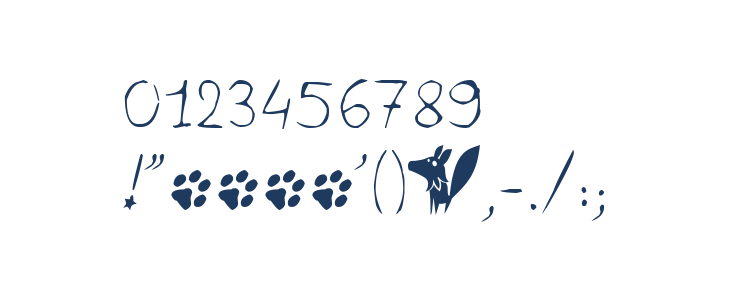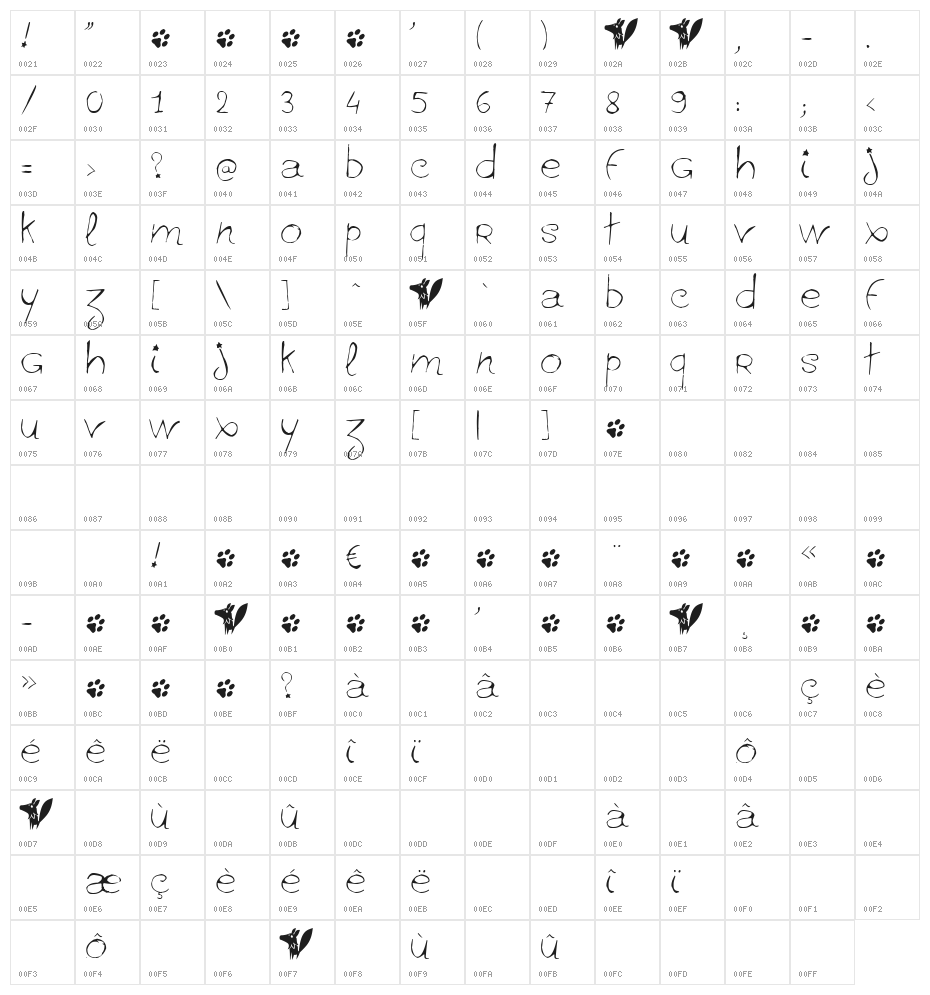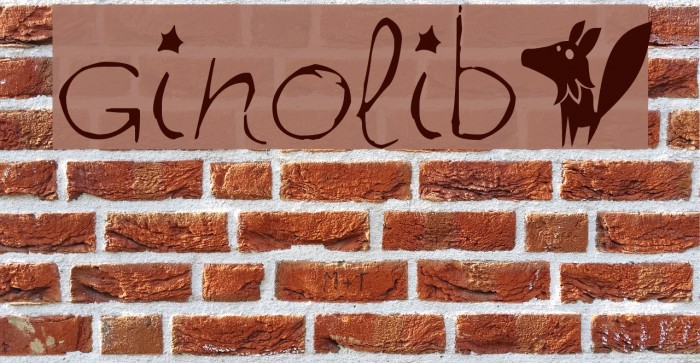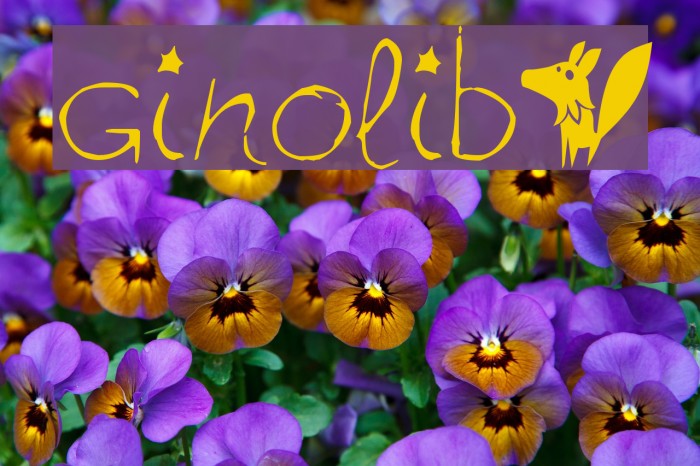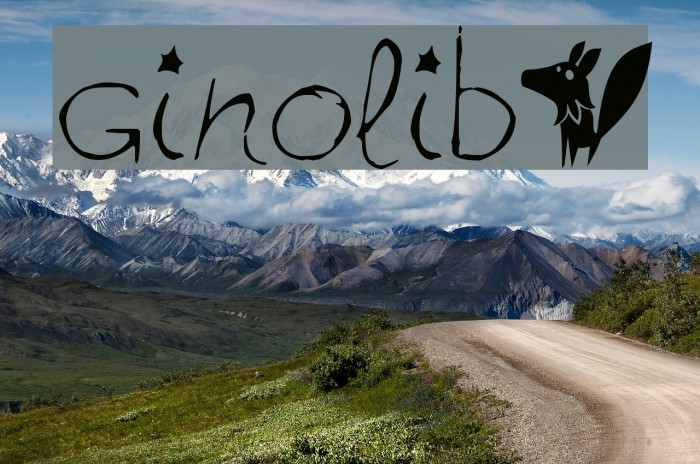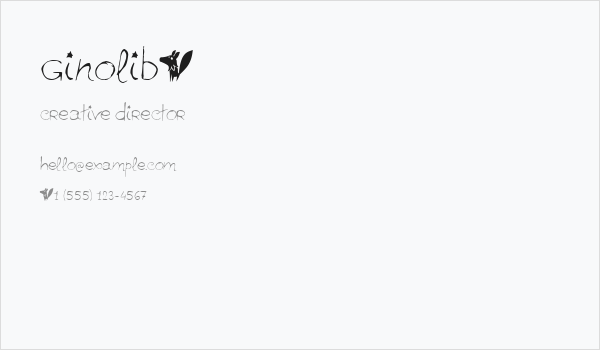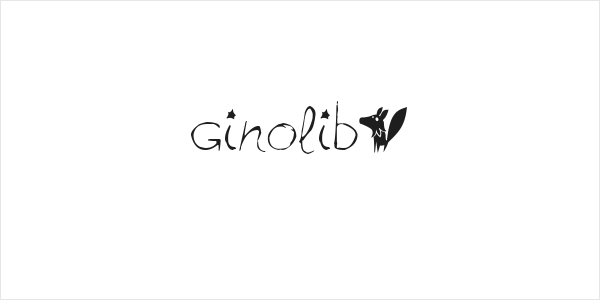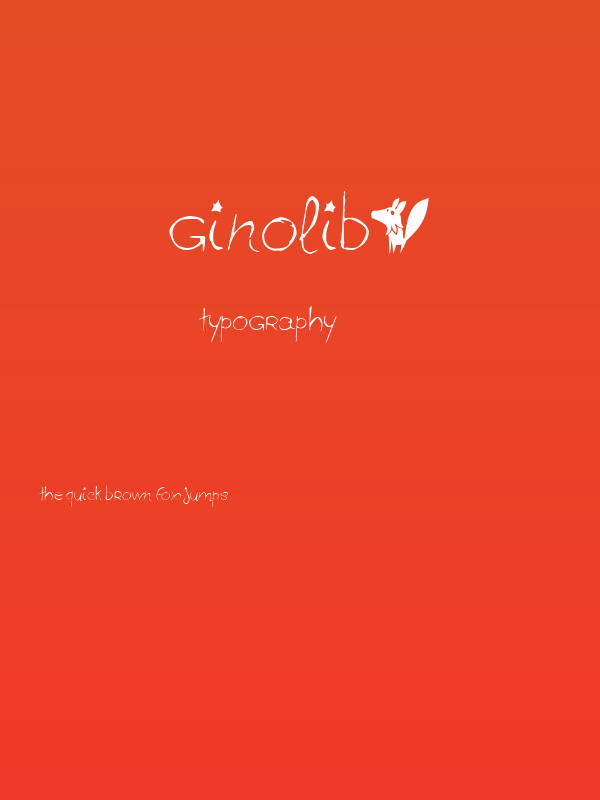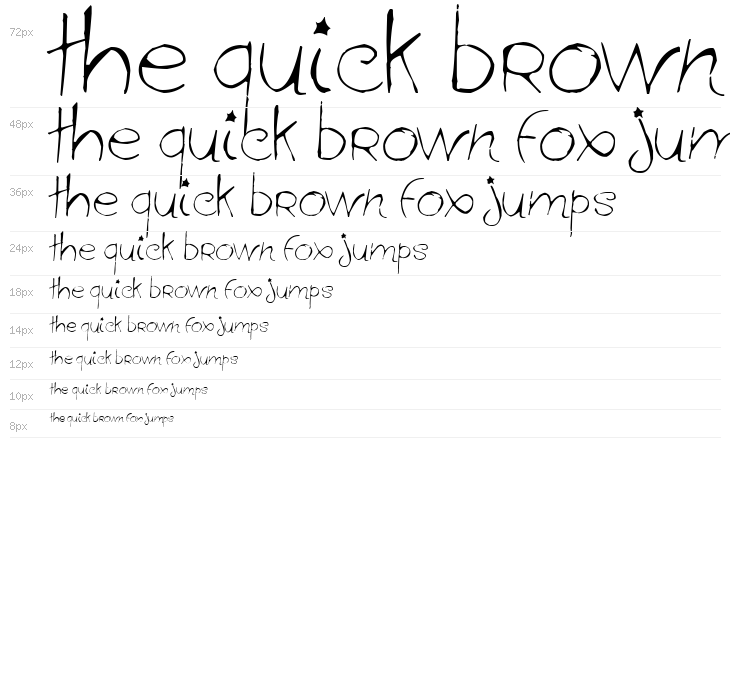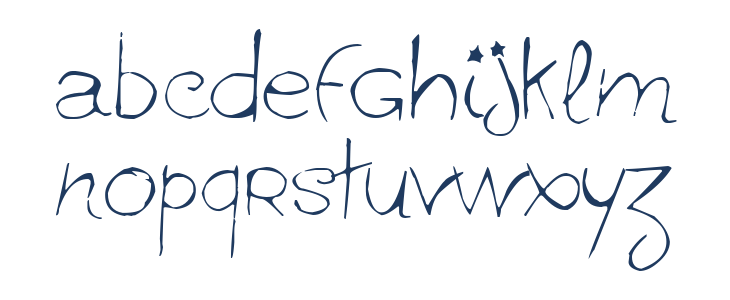
ginolib* Font
ginolib* Description
This font features a playful and whimsical handwritten style, characterized by its irregular and flowing letterforms. The strokes are uneven, giving it a casual and artistic feel. The inclusion of unique elements like stars above certain letters adds a touch of creativity and charm. The numbers and special characters maintain the same playful aesthetic, with some symbols incorporating additional decorative elements like paw prints and a stylized fox. This font is ideal for projects that require a personal and informal touch, such as children's books, creative invitations, or artistic branding.
| Overall Style | Playful, Artistic, Whimsical |
| Use Case | Headlines, Artistic projects, Informal invitations |
| Proposed Projects | Children's books, creative invitations, artistic branding, playful posters, and personal stationery. |